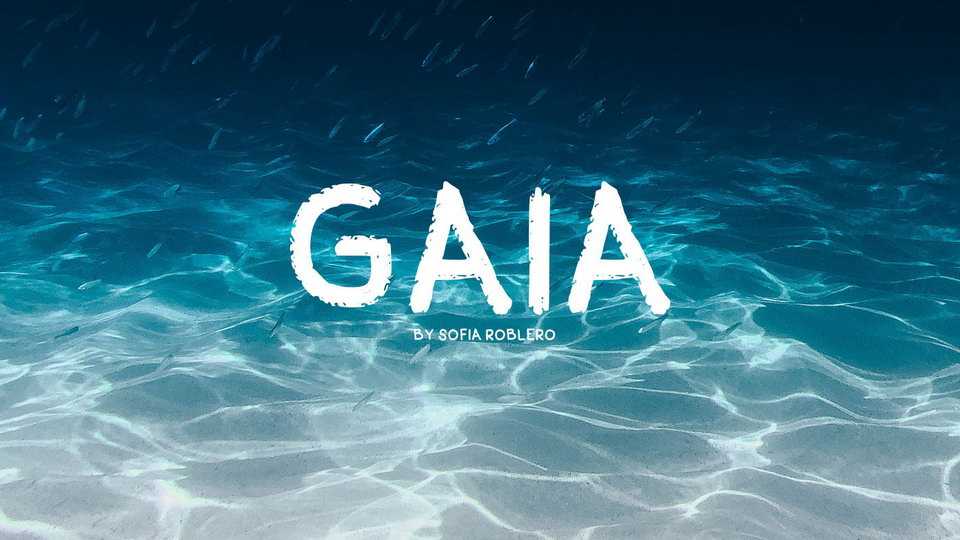
Download Gaia font, a bold hand lettered brush typeface with natural textured look. Gaia font is perfect for craft works, design for organic products, menus, posters, prints and other artworks.
Designer: Sofía Roblero